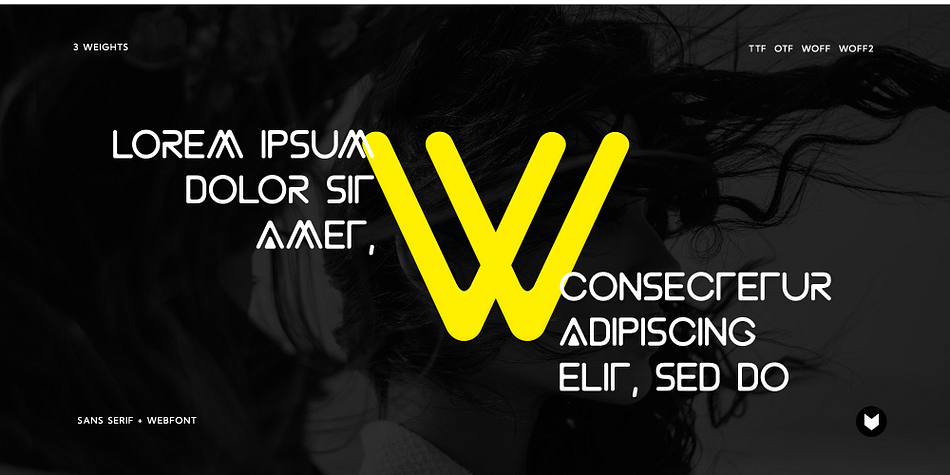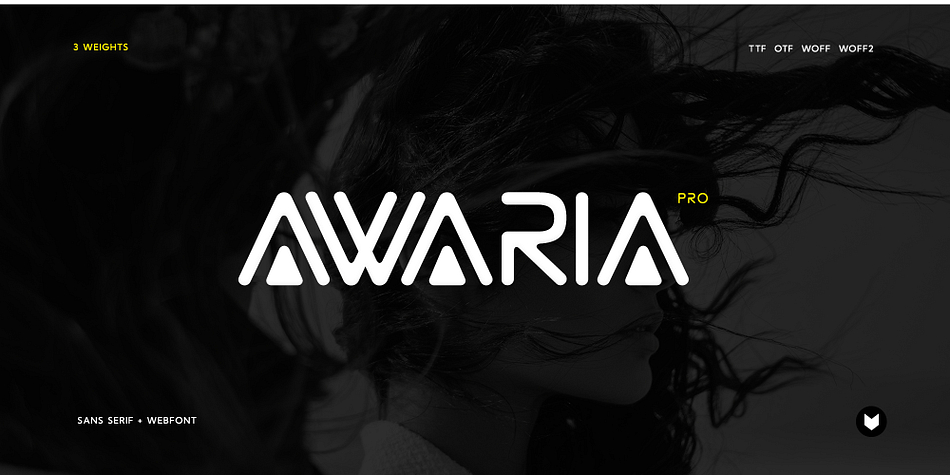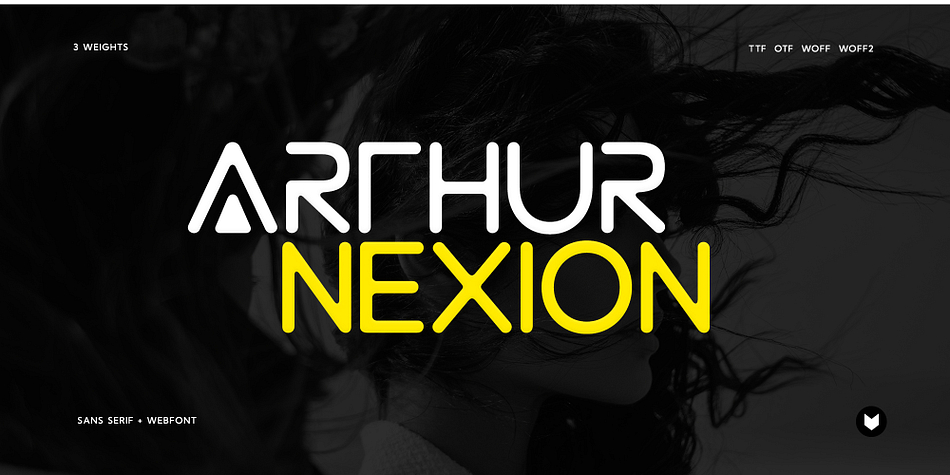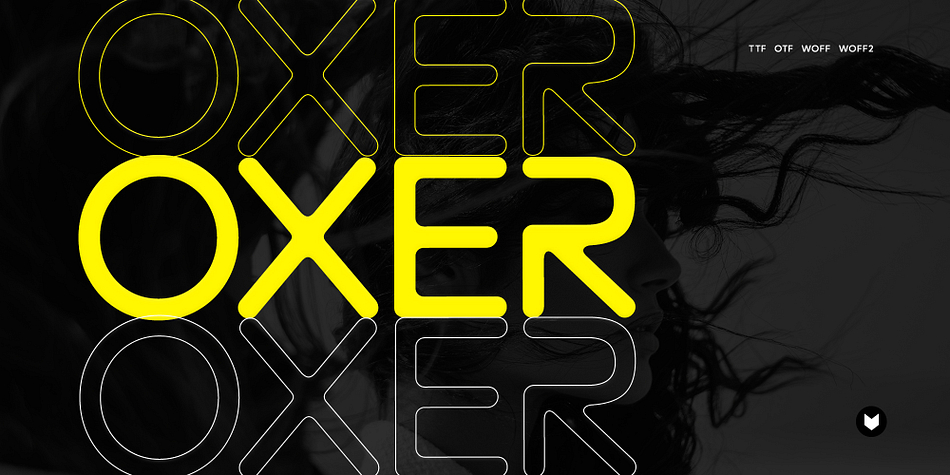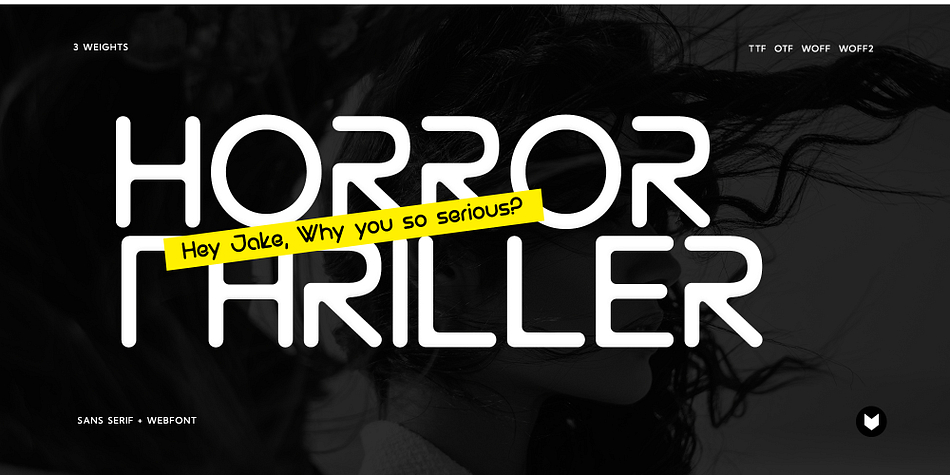
Awaria Pro
Awaria Pro is a display sans font family. This typeface has three styles and was published by Foxtype.
Awaria pro is a Unique Modern Elegant Typeface with Web-fonts. It’s a very versatile font that works great in large and small sizes. Awaria would perfect for branding, logos, headlines, Captions. or simply as a stylish text overlay to any background image.